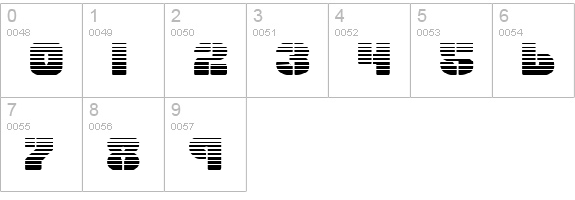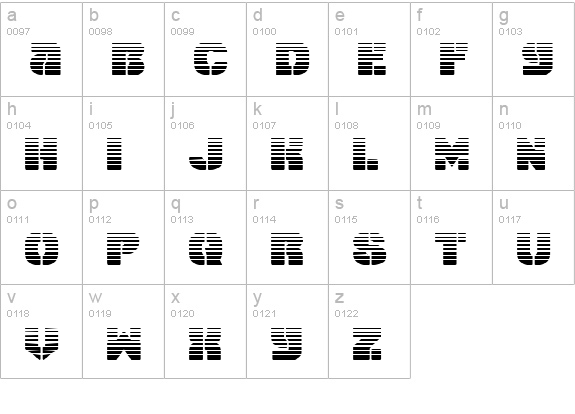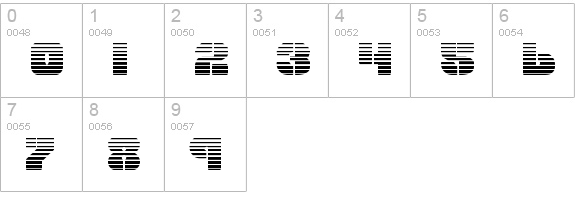
Space Cruiser Gradient Font Details
Introducing Space Cruiser Gradient, a captivating and futuristic font that takes you on a journey through the depths of outer space. This font embodies the essence of exploration and discovery, with its sleek and modern design that is bound to leave a lasting impression. Space Cruiser Gradient is a versatile typeface that can be used for a wide range of projects, from sci-fi movie titles to futuristic branding and beyond. Its unique gradient effect adds depth and dimension, giving your designs an extra touch of sophistication and visual appeal. But what sets Space Cruiser Gradient apart from other fonts is not only its stunning aesthetics, but also its accessibility. This font is freely available to download at FontsMarket.com, making it easily accessible to designers, enthusiasts, and anyone looking to add a touch of cosmic elegance to their projects. Whether you're designing a poster for a sci-fi convention or creating a logo for a futuristic tech company, Space Cruiser Gradient is the perfect choice to elevate your designs to new heights. Its clean lines and bold presence make it a standout font that demands attention, while its gradient effect adds a touch of otherworldly beauty. So why settle for ordinary when you can take your designs to the next level with Space Cruiser Gradient? Download this remarkable font for free at FontsMarket.com and let your creativity soar to infinity and beyond.